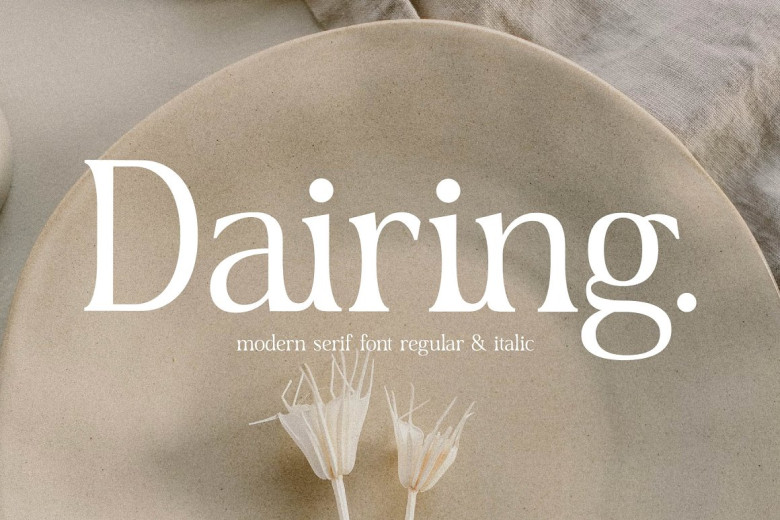
Dairing Font
Dairing Font is a timeless classic serif font with its own distinct style and look, ideal for use as logotypes, clothing labels, magazine articles or movie titles.
Dairing Serif Font